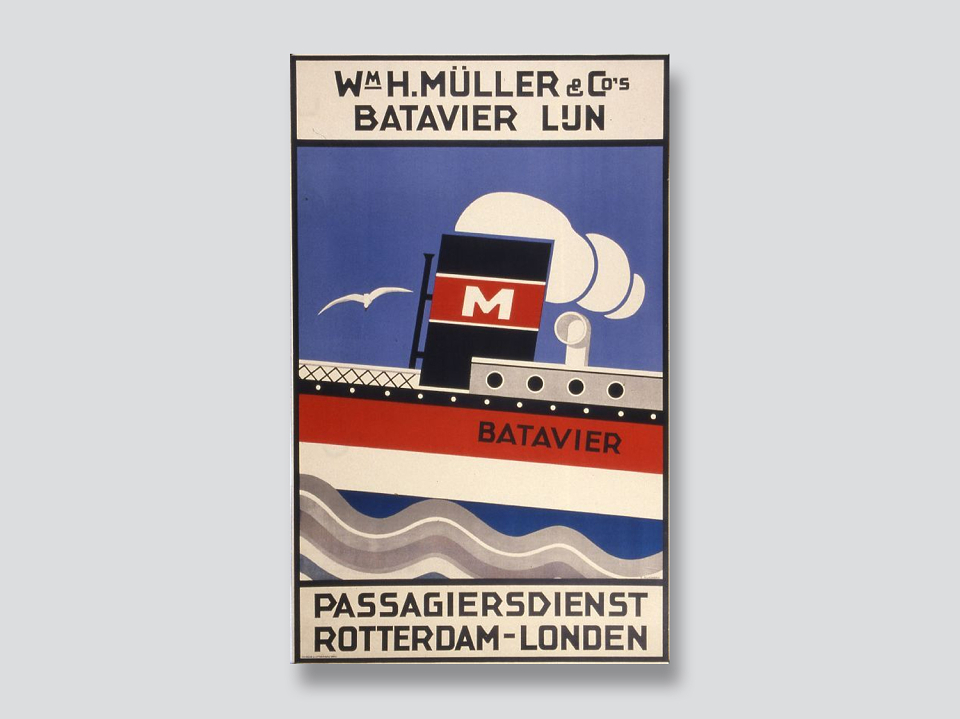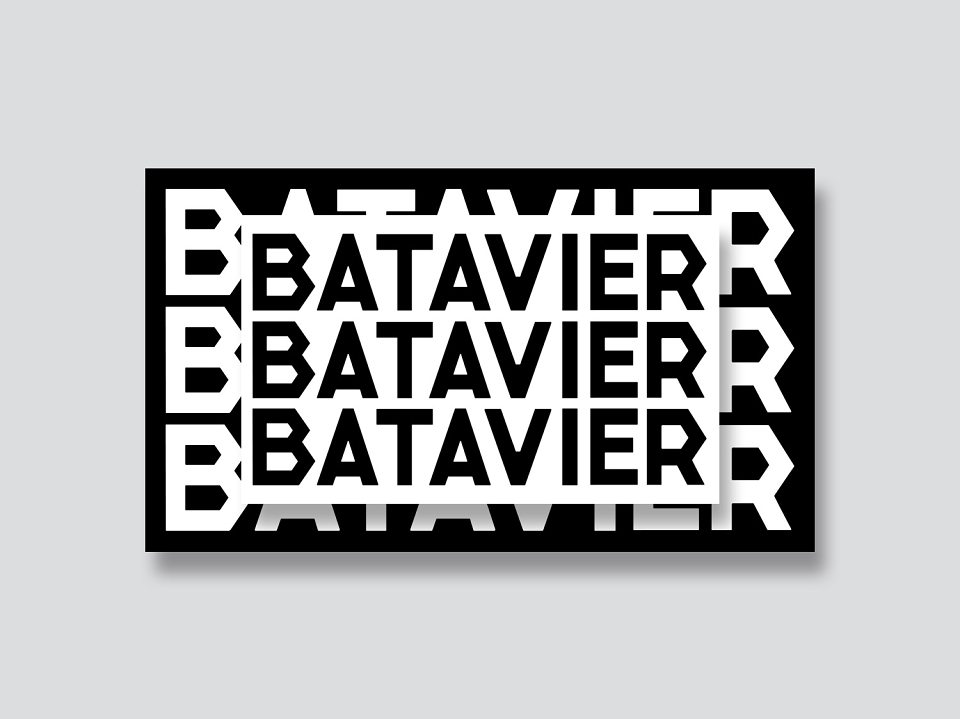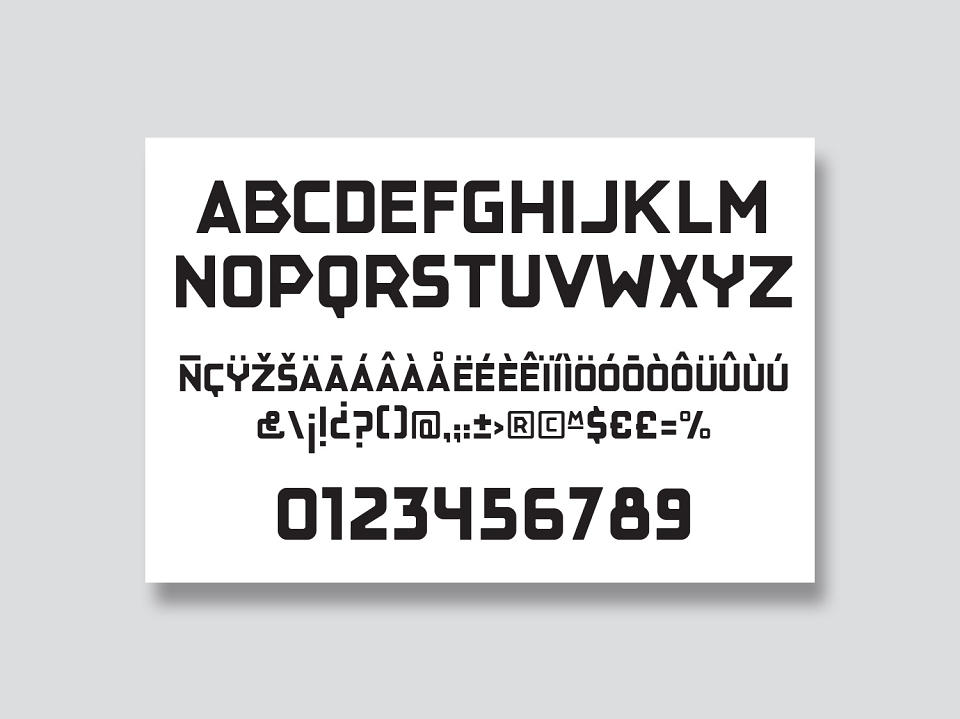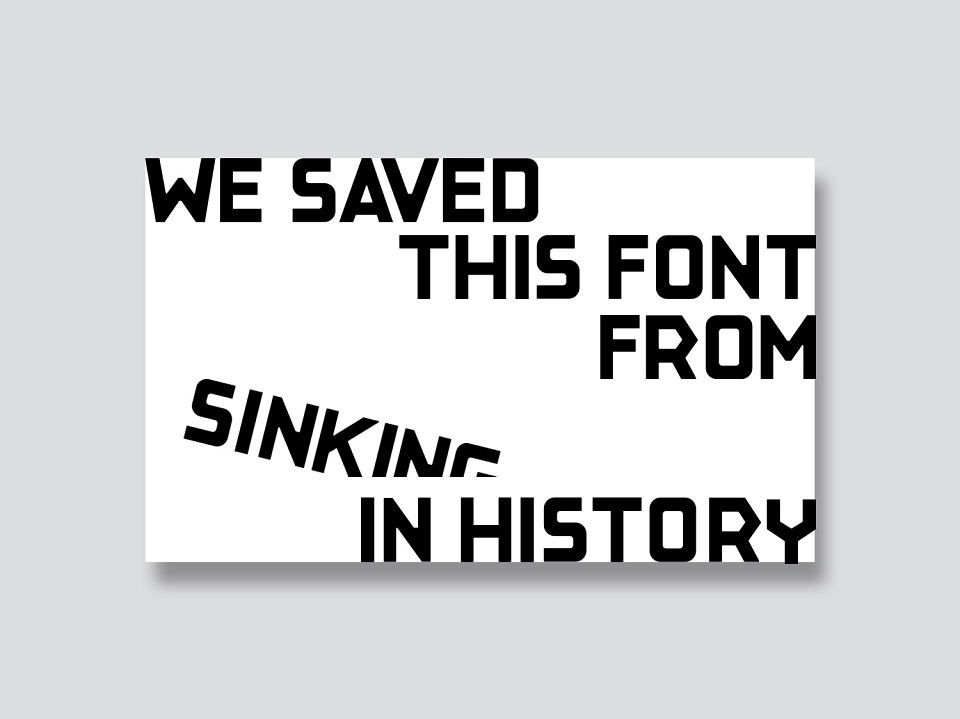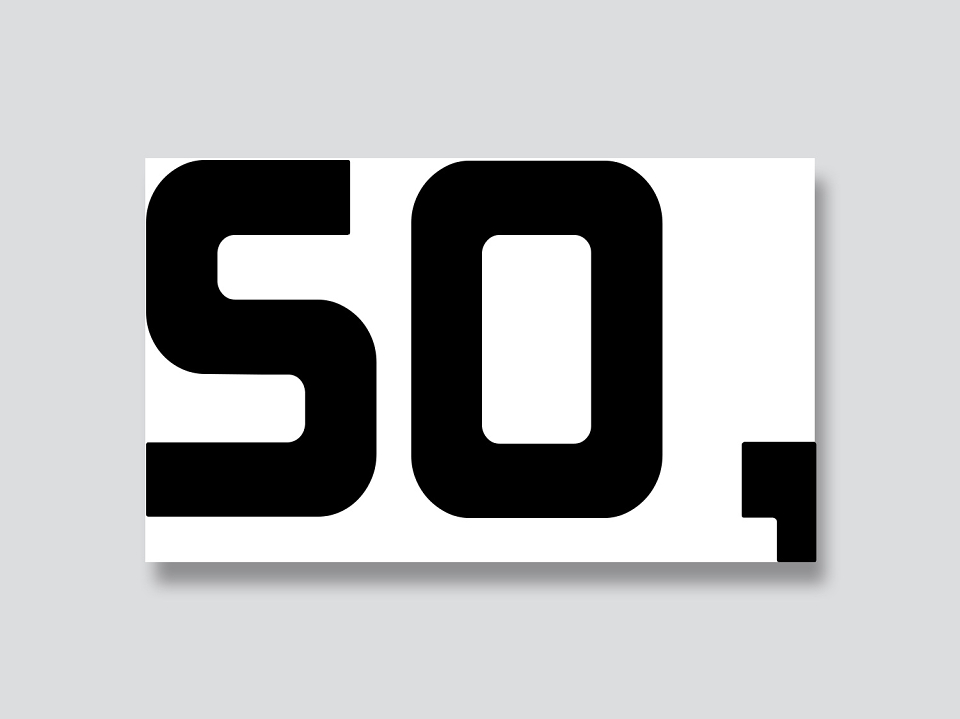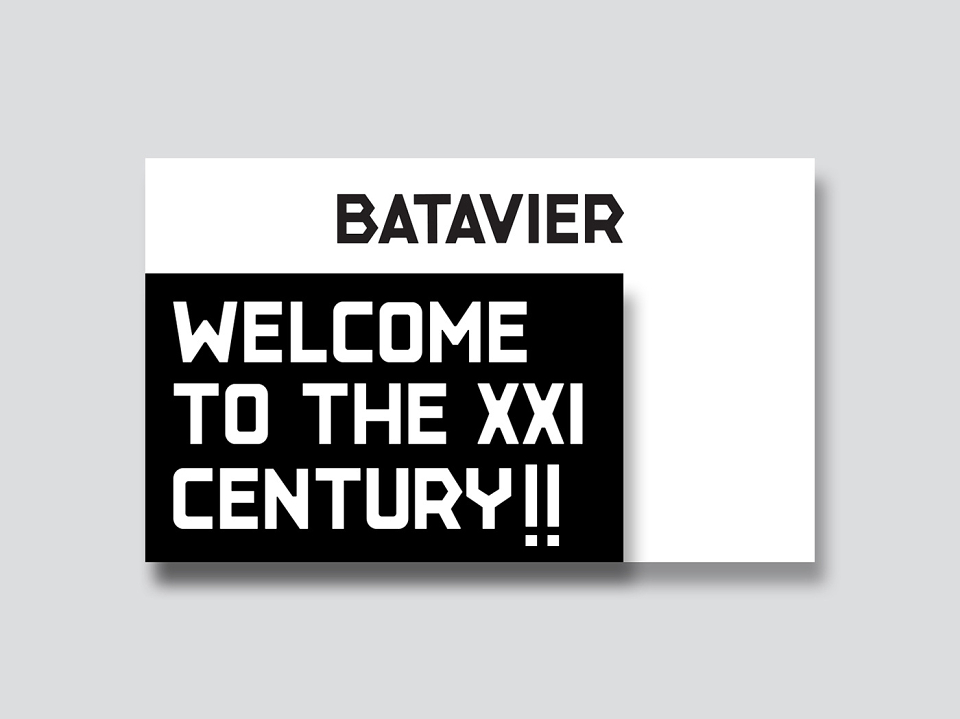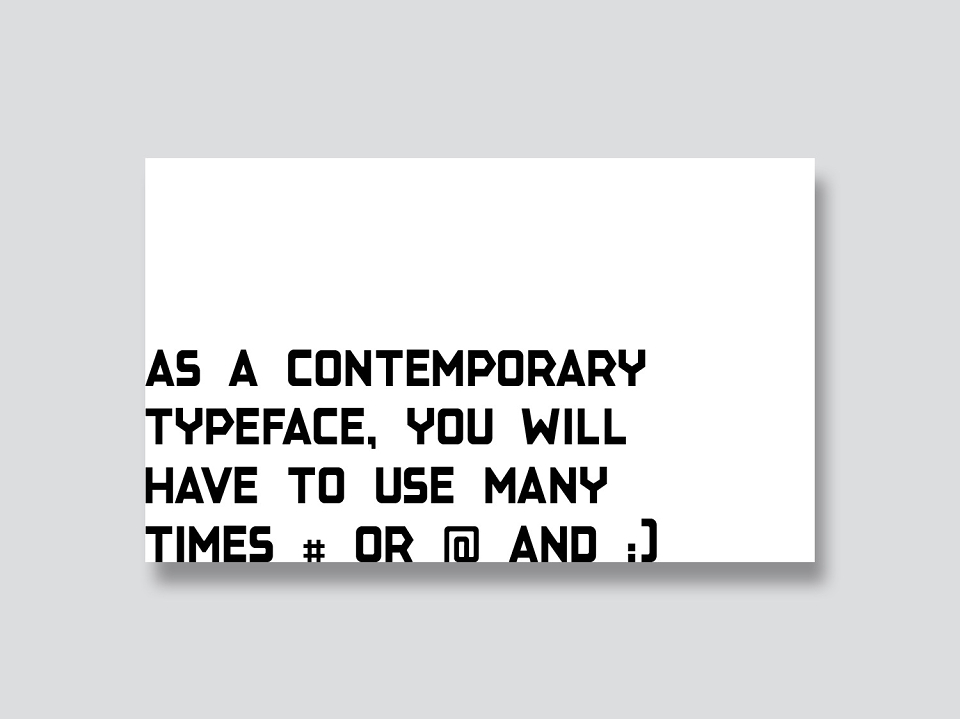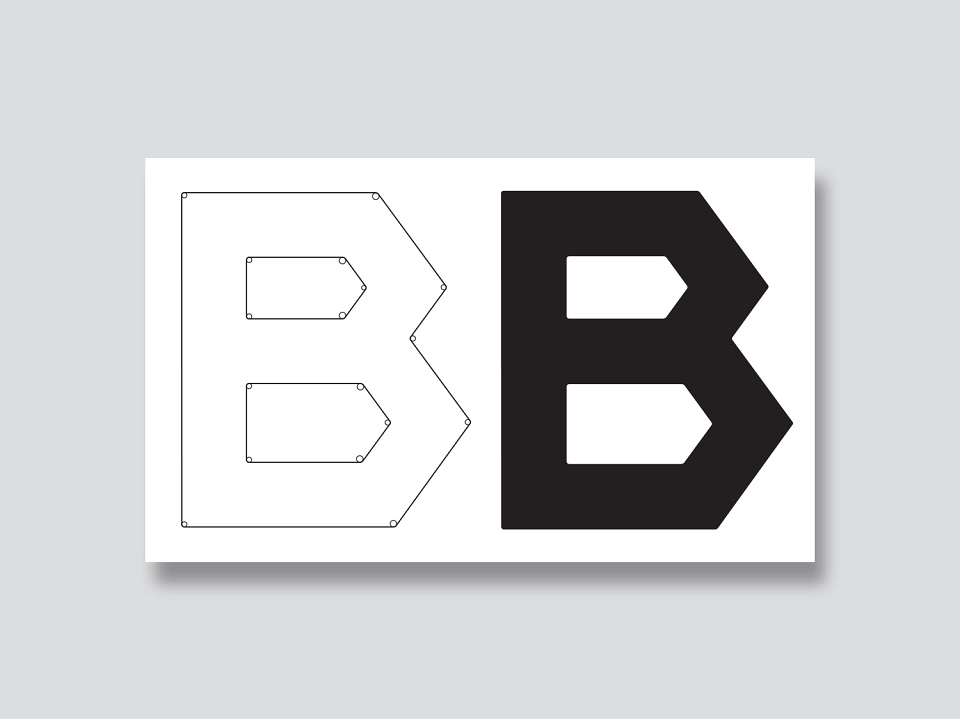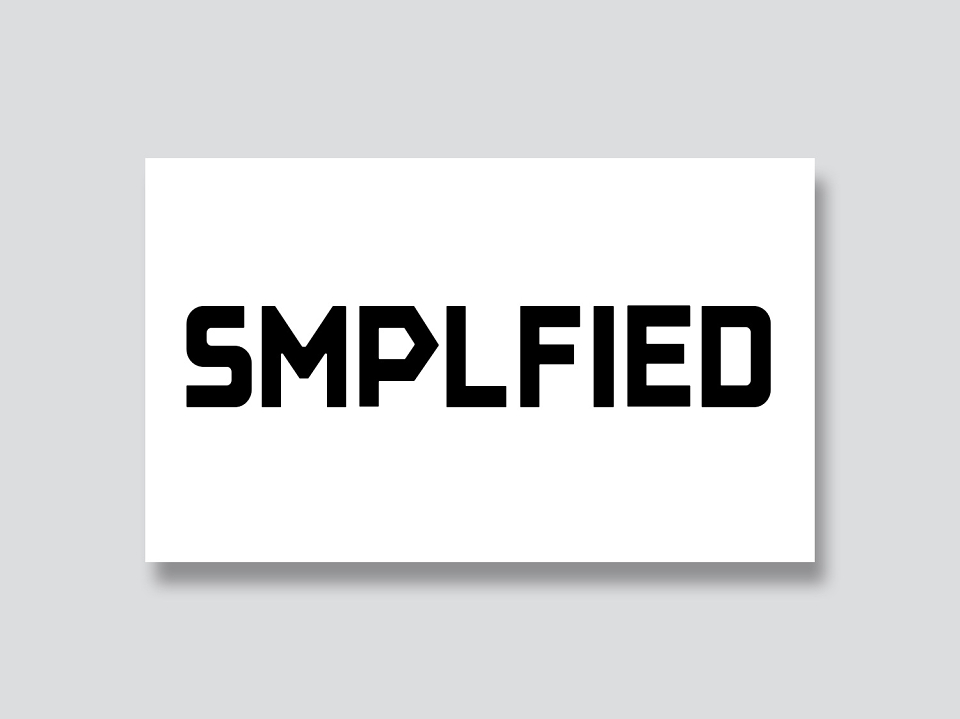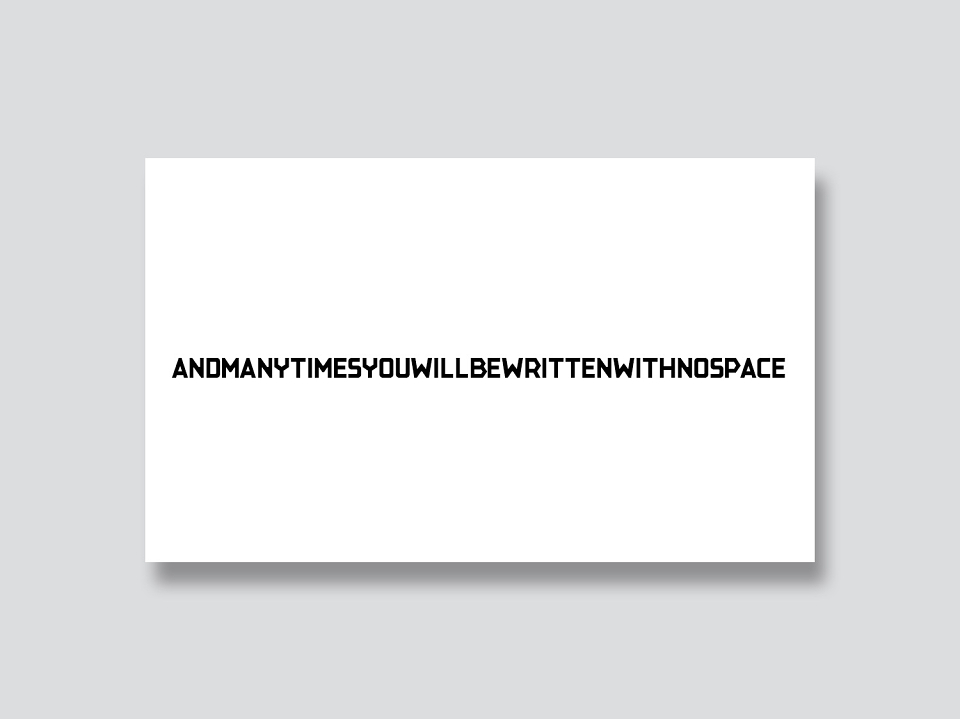
We saved this font from sinking in history. Batavier is a display typeface featured in a travel poster from 1928 announcing the route by ship between Rotterdam and London by Wm. H. Müller & Co’s Batavier Line. After researching the origins of this typeface, we surprisingly discovered that it was an industrial typeface that was trendy in between 1910 and 1930 in USA, Netherlands, Germany and Hungary and similar versions were used in several advertisements, leaflets and lettering.
New Batavier is a revival of that magnificent font which was completed by Yarza Twins in 2016 with the desire to avoid its oblivion in history. Daughter of De Stijl design and constructivism, Batavier combines classic geometric shapes with sharp angles that bring it back to the edge of contemporary design.
New Batavier font